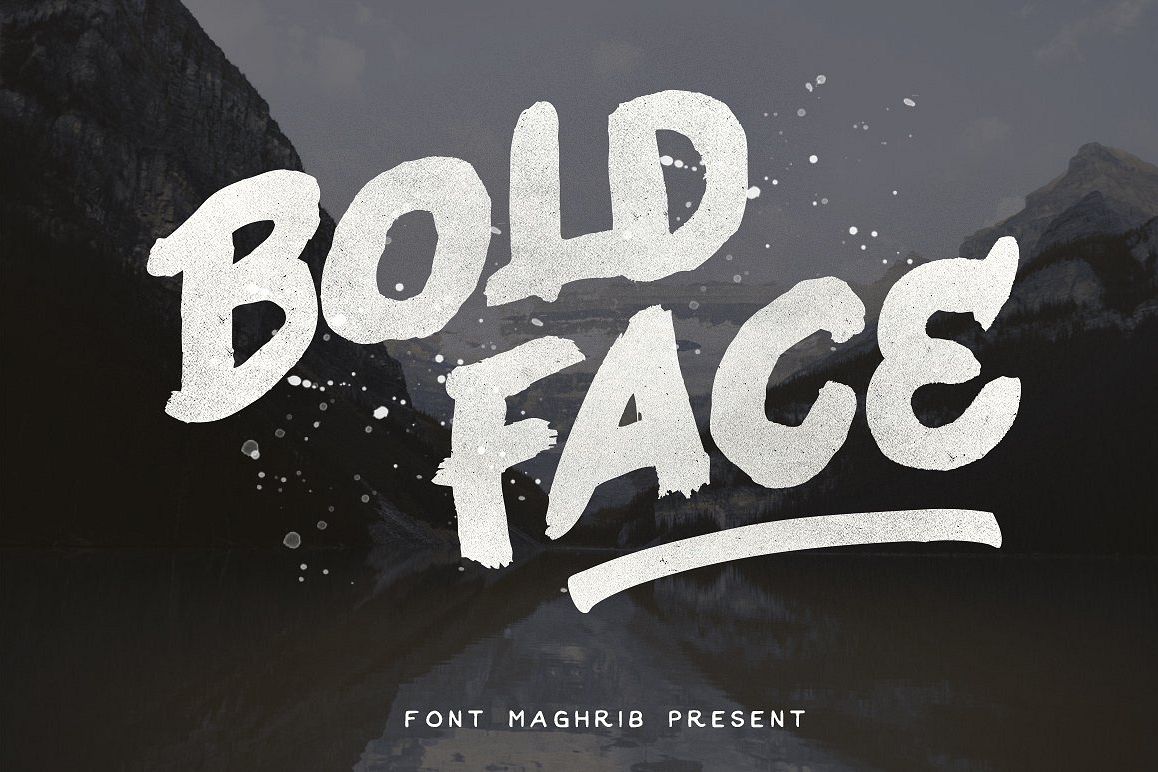
Bold Face
Boldface
BoldfaceLowercase
Bold Face is hand painted typeface designed to help you create the look of stunning custom hand-lettering.Bold Face is very best choice fonts for : ,quotes, Posters, Logos, Print Ads, Digital Ads, Promotion Product, video bumper, etc